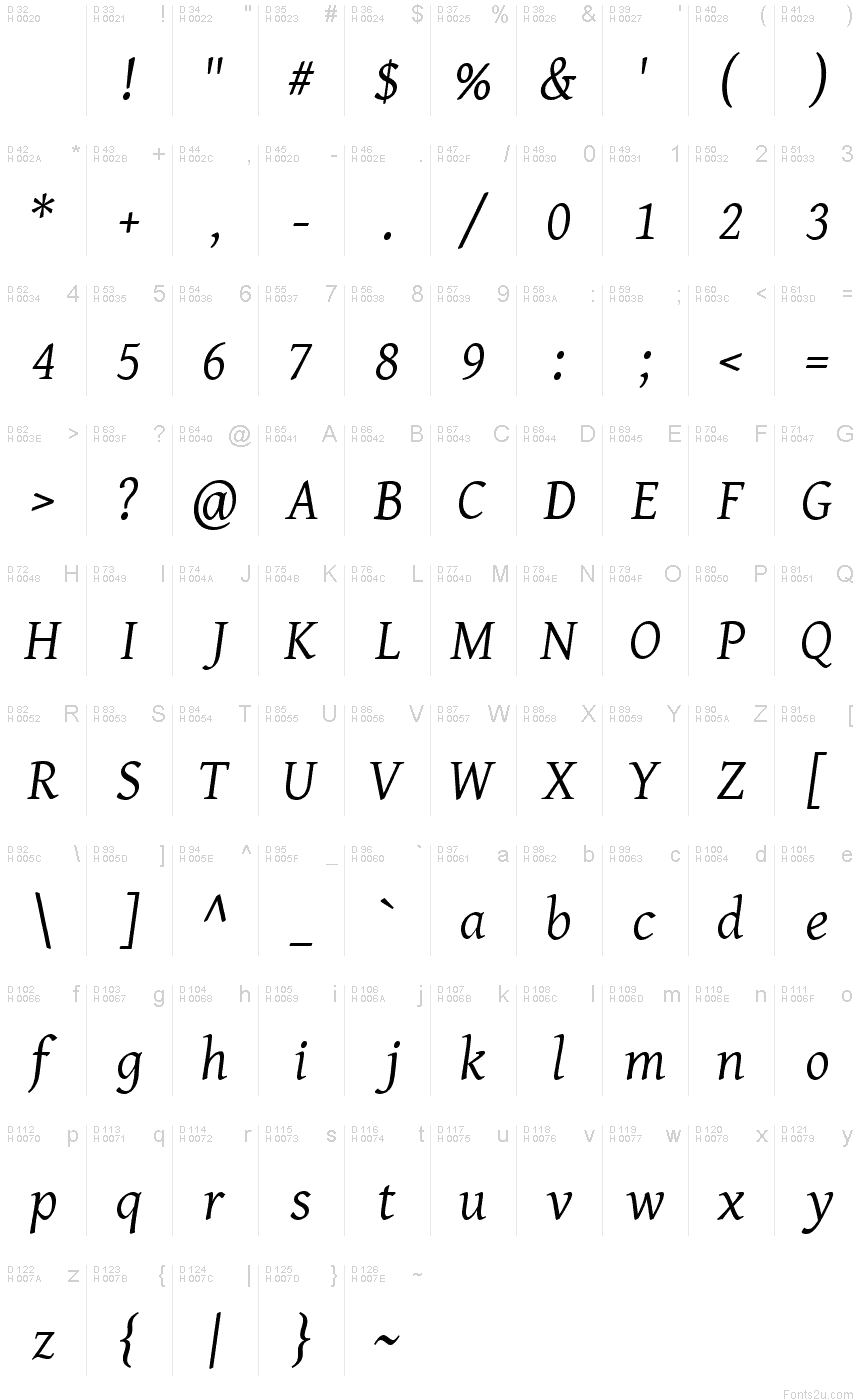
Gentium Alt Italic font by J. Victor Gaultney is a free serif typeface that finally gives emphasis text the same care as the main copy. Its gently sloped forms, soft curves, and slightly calligraphic strokes feel warm and bookish without getting fussy, so annotations, side notes, and long italic passages stay readable instead of collapsing into a slanting blur. The rhythm between letters is even and unhurried, making it comfortable for eyes that linger on dense, thoughtful text.
Using Gentium Alt Italic, you can set elegant quotations, academic essays, multilingual notes, footnotes, literary websites, and refined editorial layouts with confidence. This free font shines when it supports a primary serif, especially when paired with GentiumAlt Roman or a clean humanist sans for headings. Try running GentiumAlt Italic a size smaller for notes and references; its clarity holds up beautifully even when the type gets tight.